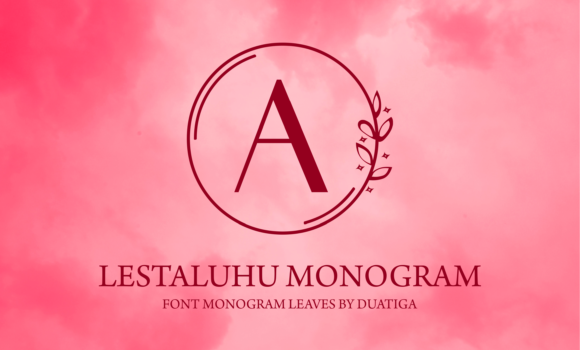
Lestaluhu Font – Free Download Introduction to Lestaluhu Font Lestaluhu is a bold and elegant decorative font, featuring lovely flowers as ornaments. 📸 Preview Gallery 6 images 📌 Product Name Lestaluhu Font 👤 Author Duatiga 📂 Category Explore ⬇️ Download